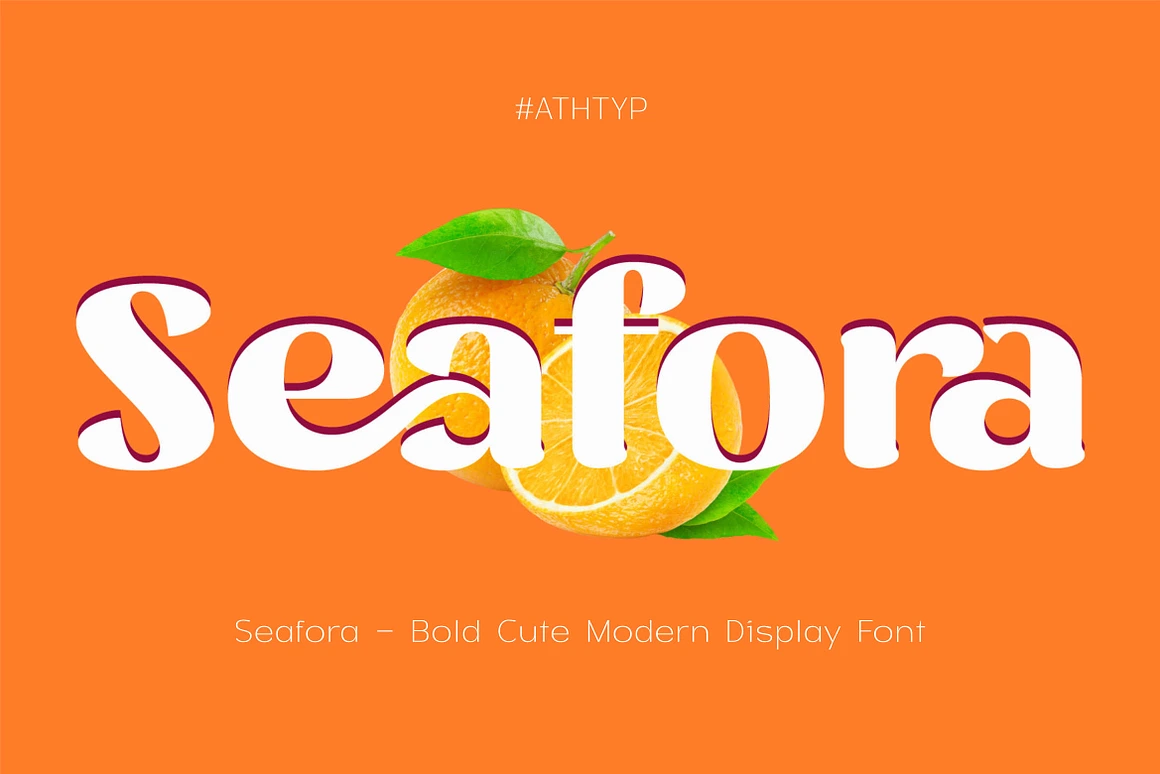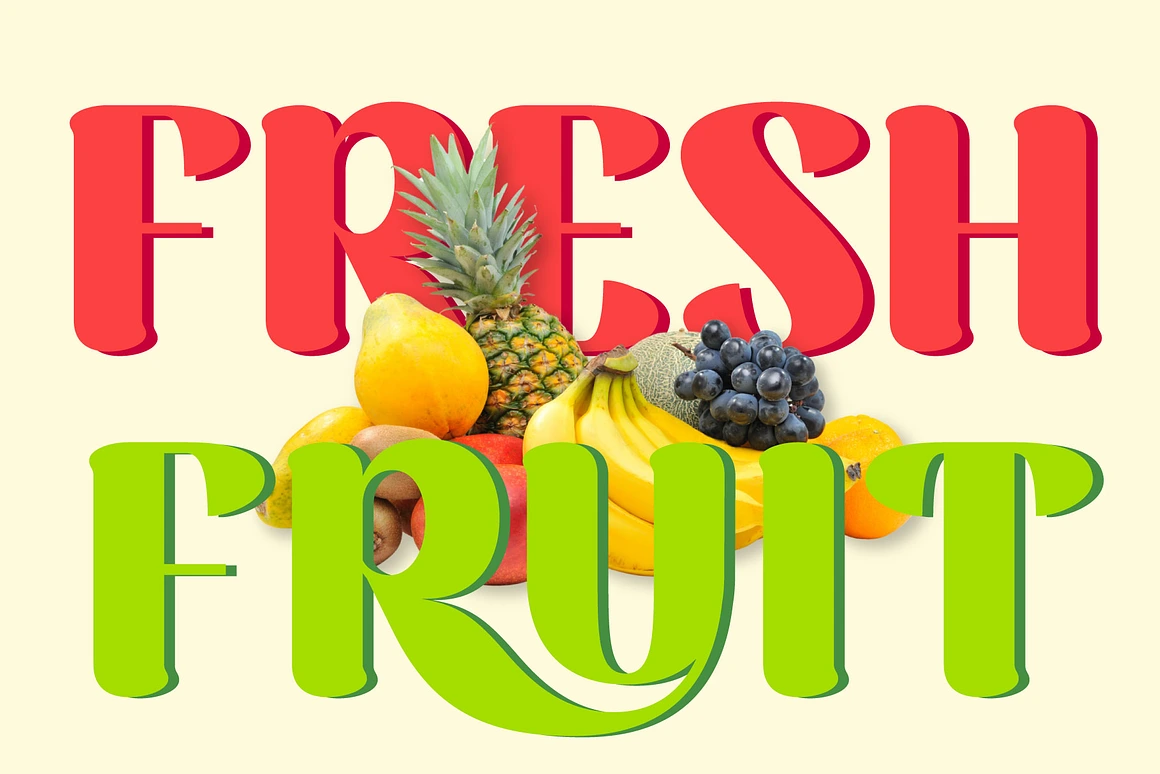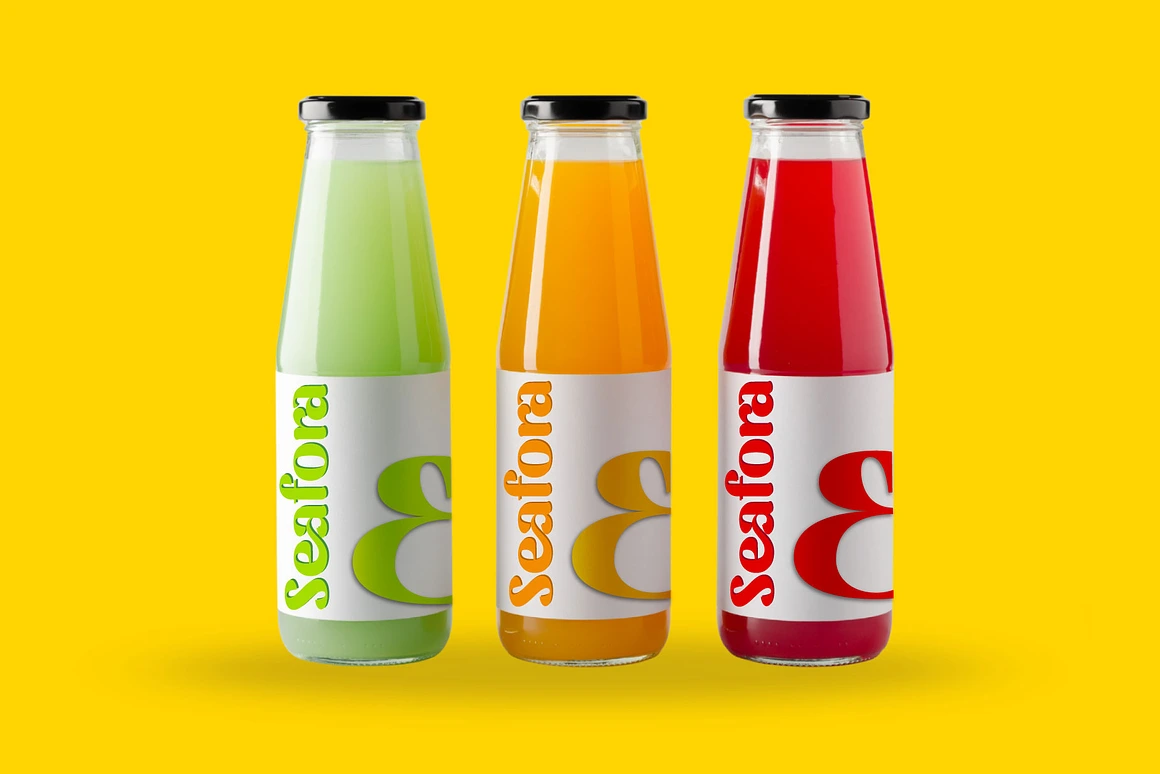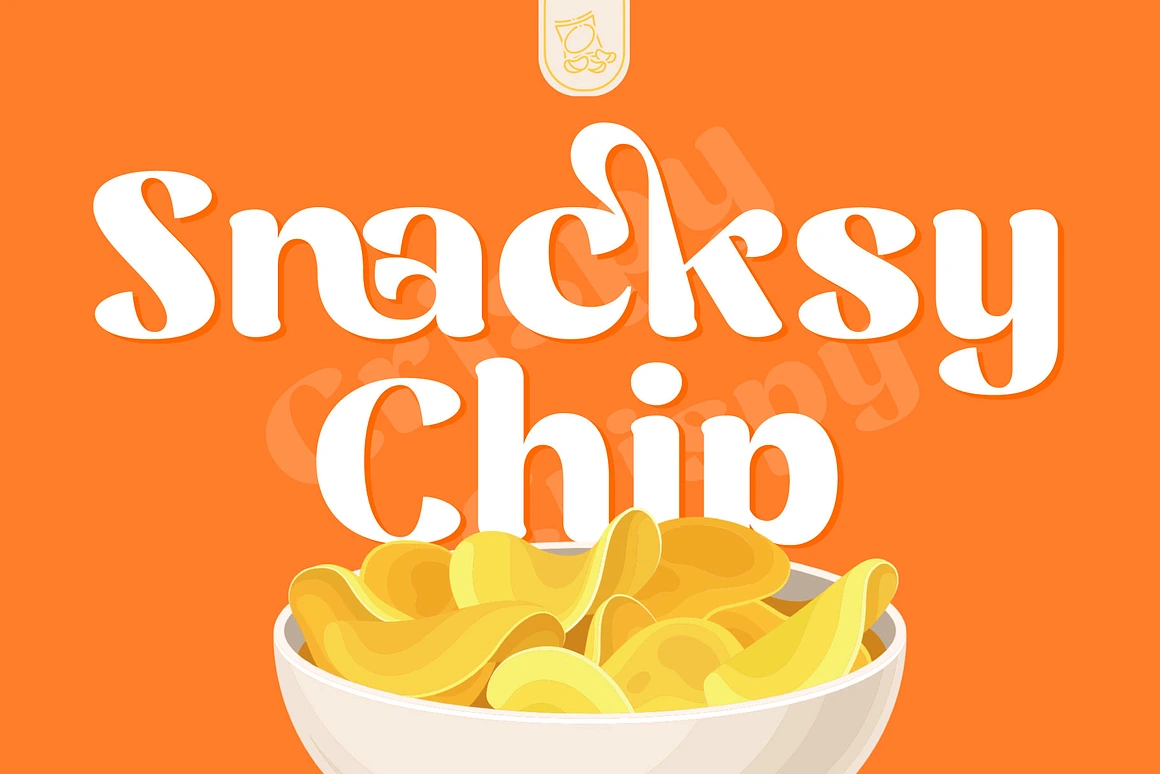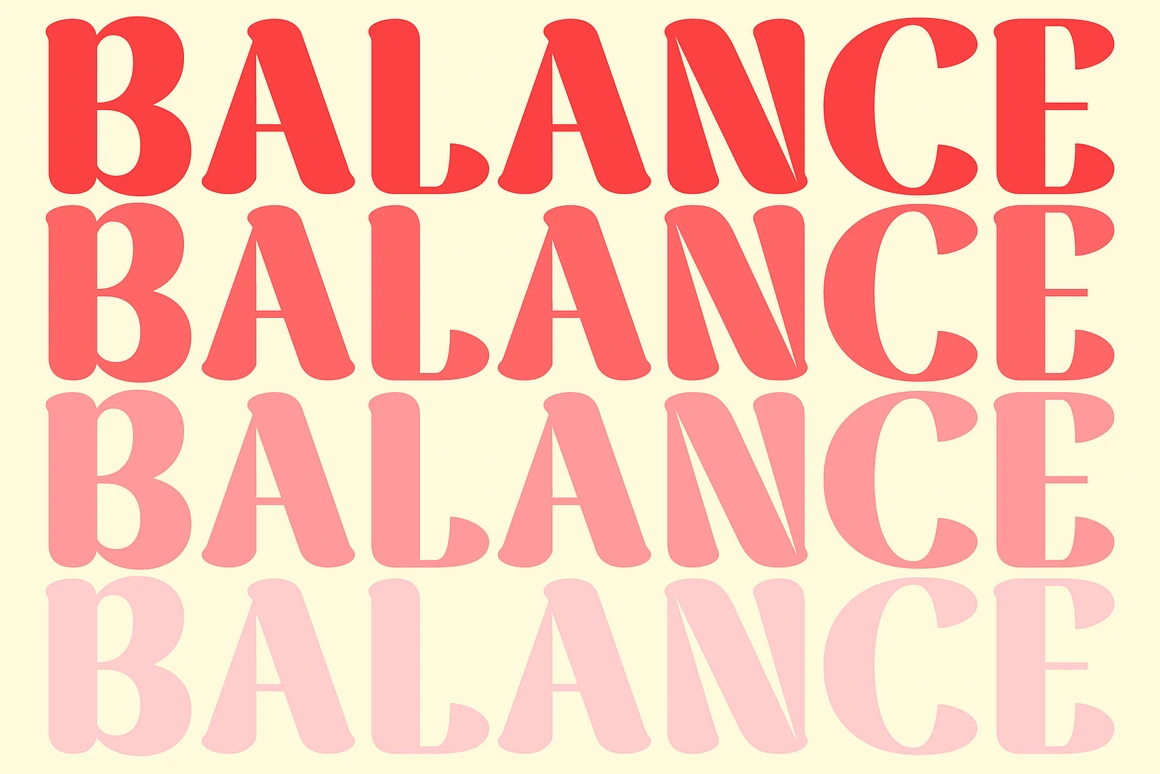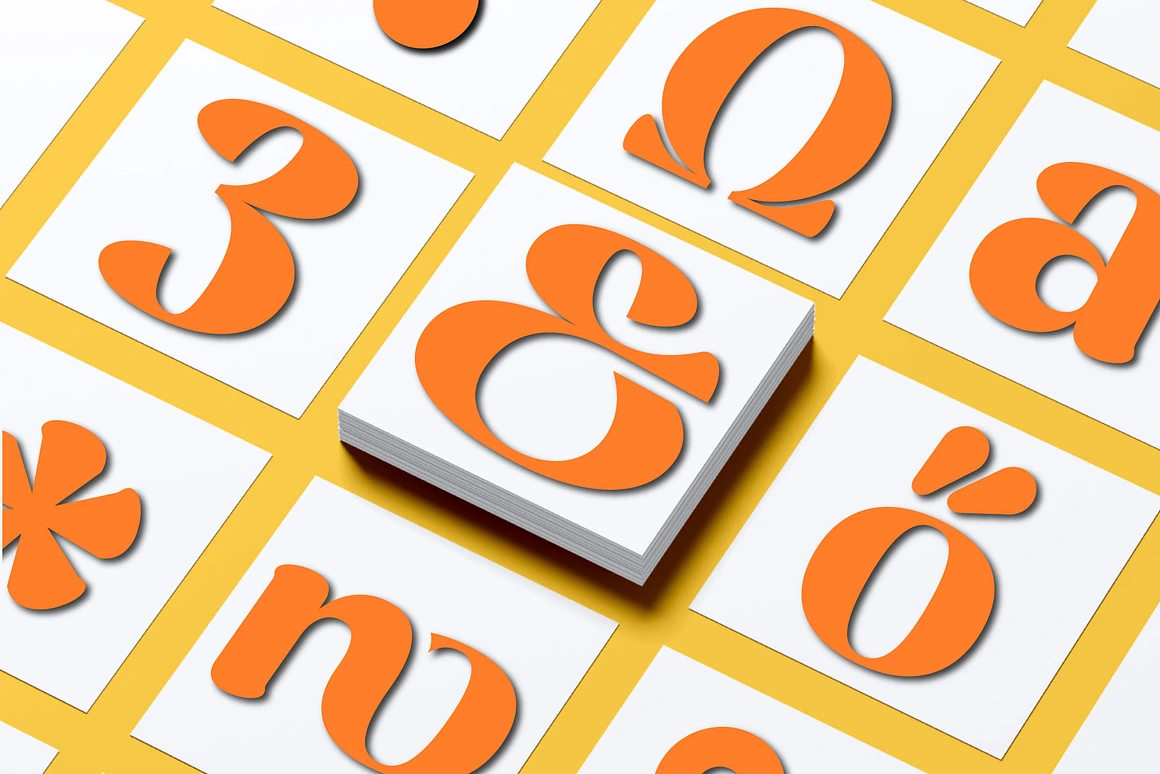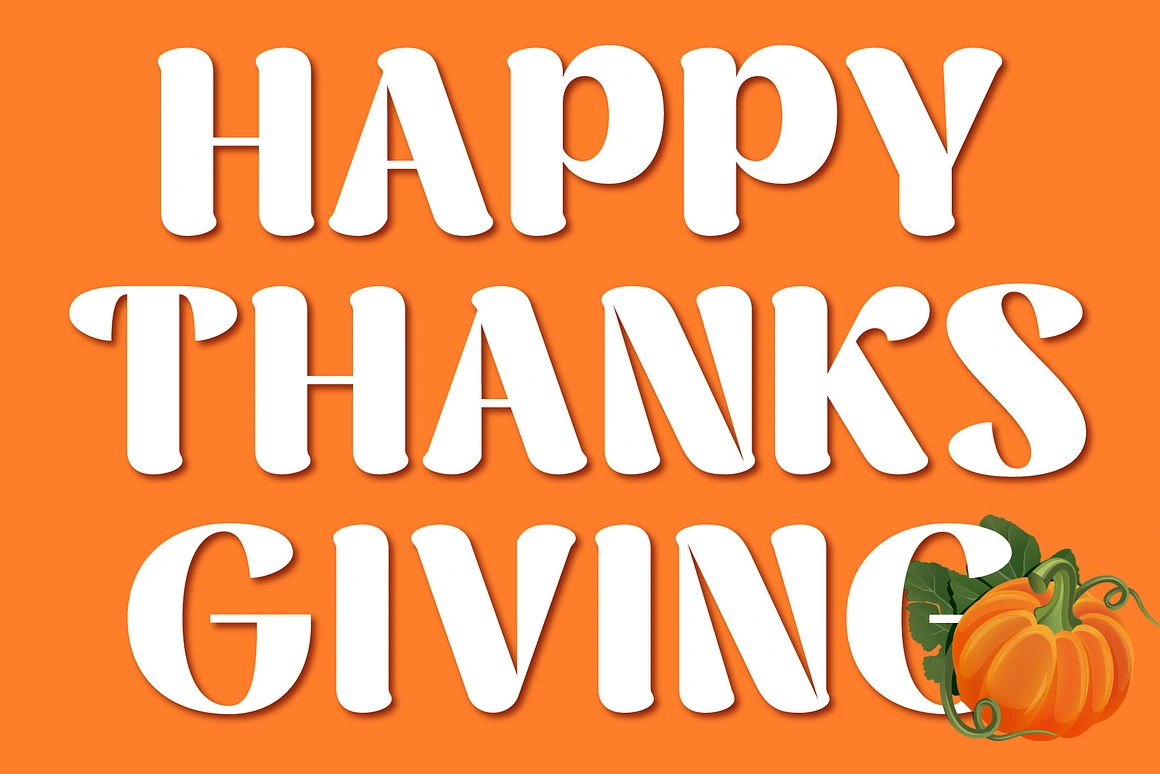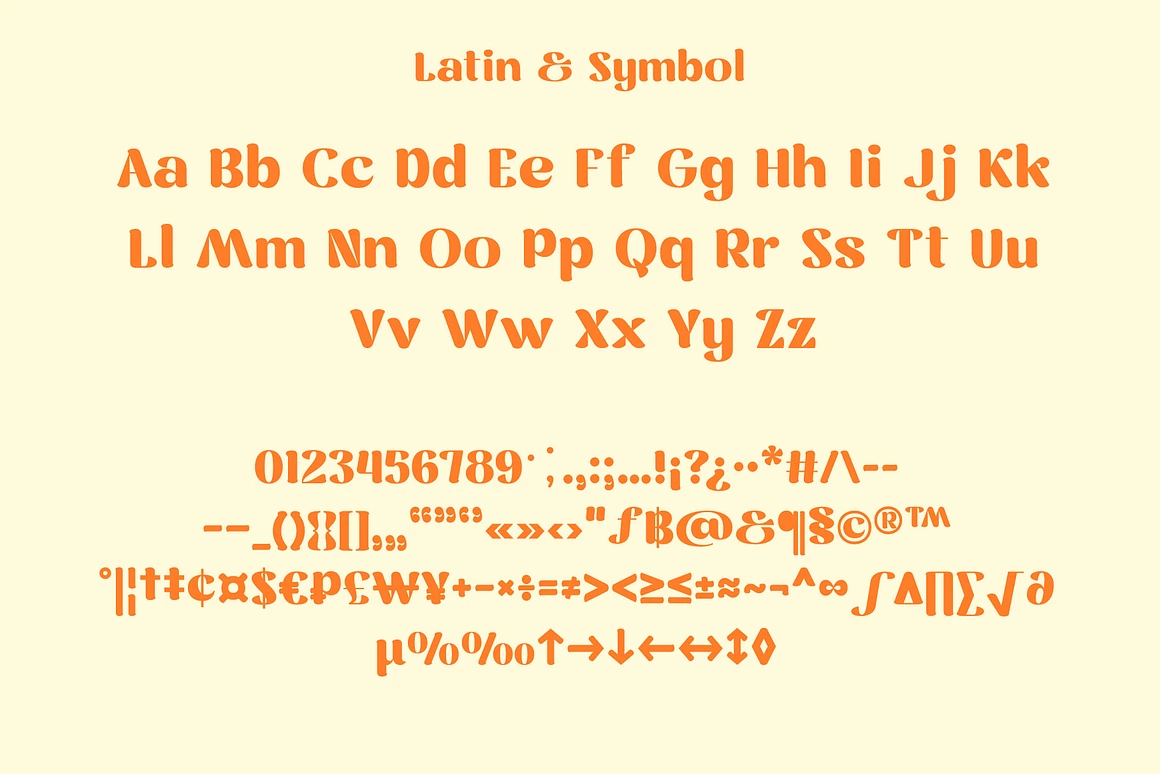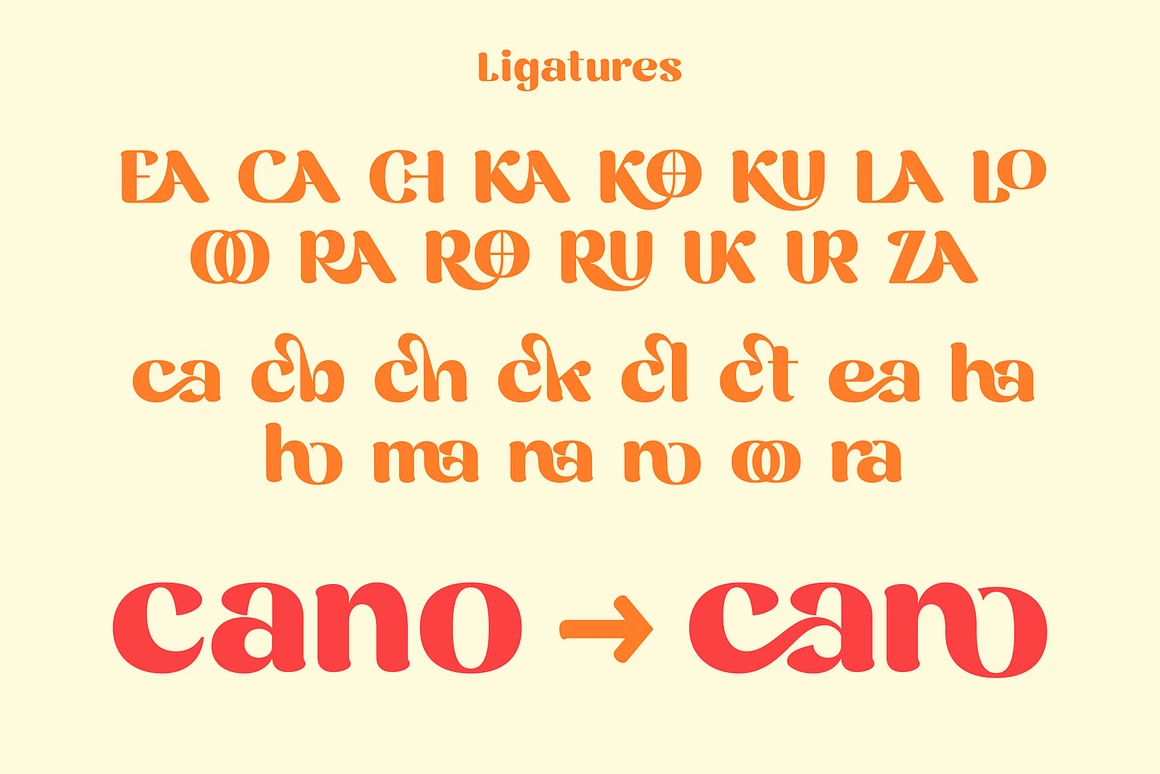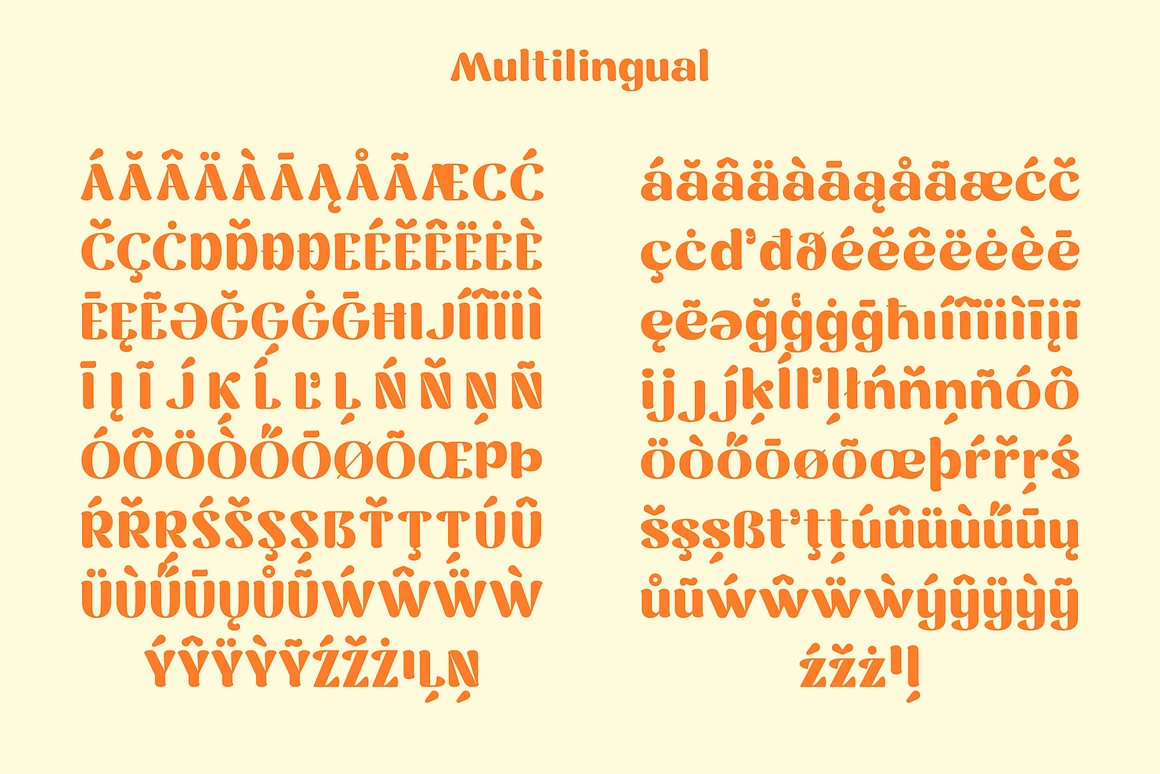
Seafora – Bold Cute Modern Display
Seafora is a bold yet cute modern display font, designed to stand out in any creative project. Inspired by the latest design trends, from Halloween and Christmas themes to modern, playful, minimalist branding.
Seafora font combines bold shapes with soft, charming curves, making it both inviting and friendly. Perfect for a variety of projects such as:
– Halloween posters with a fun and stylish touch
– Christmas greetings with a warm and modern feel
– Brand identities and logo designs with a cute yet confident personality
– Food packaging and social media graphics
– Graffiti or grunge-style creative projects
– Designs inspired by Arabic decorative art with a modern twist
Features:
– Multilingual support
– Bold and cute modern style — versatile and trendy
– Perfect for designers who want a strong, playful, and contemporary typeface. Seafora brings a playful charm and bold energy to everything from modern branding and holiday visuals to packaging design and social content.